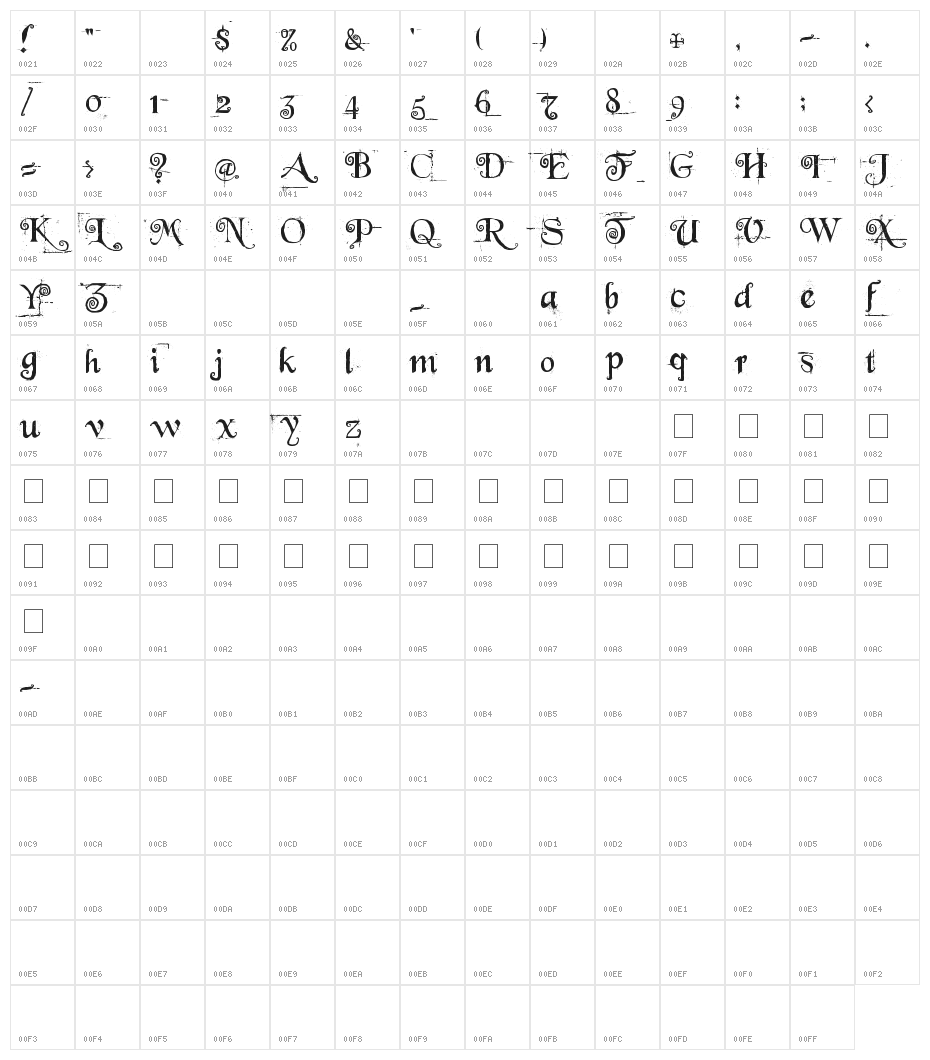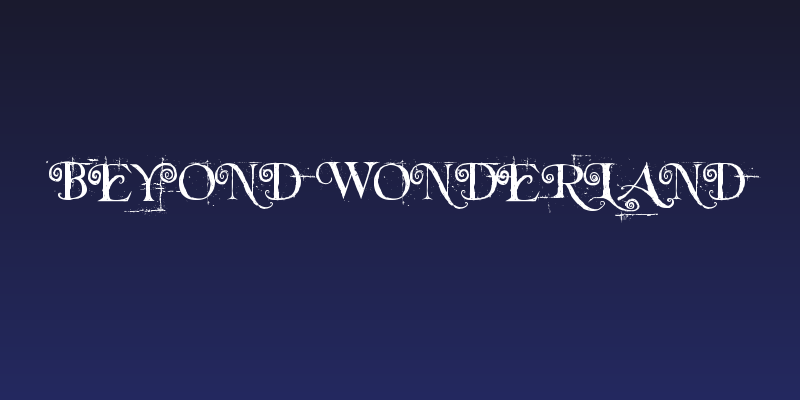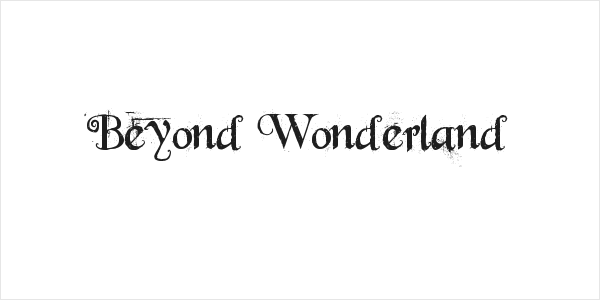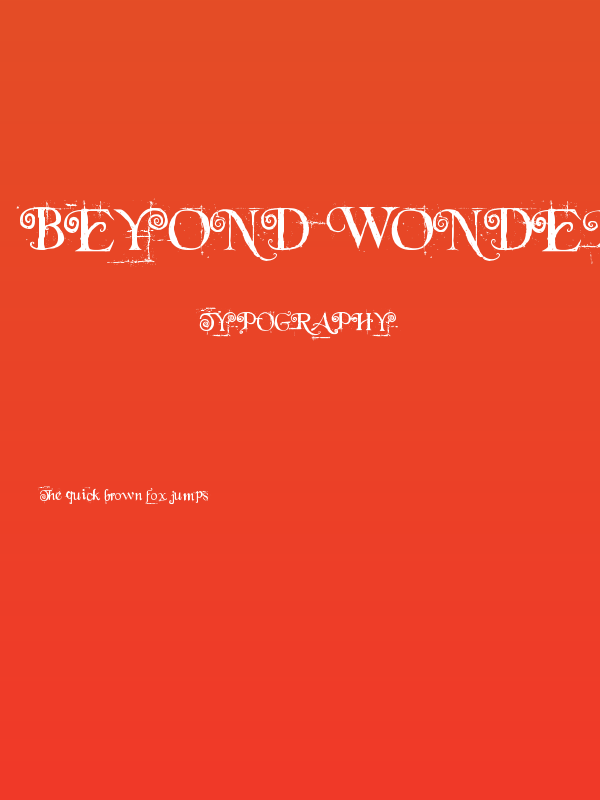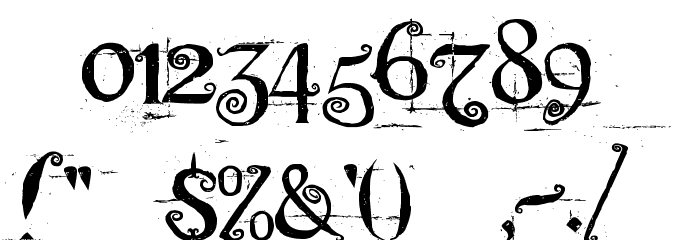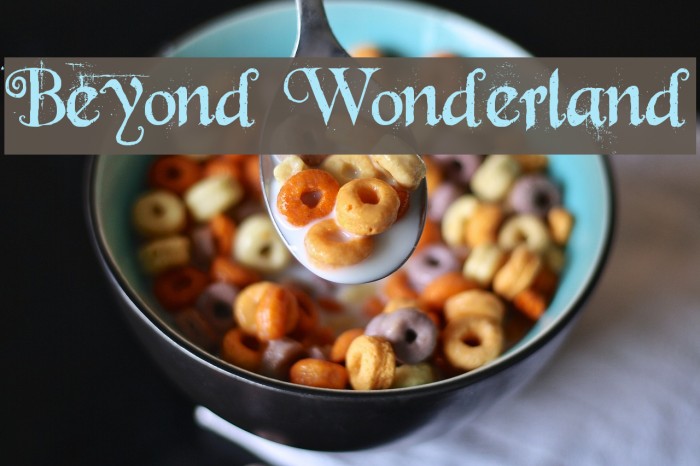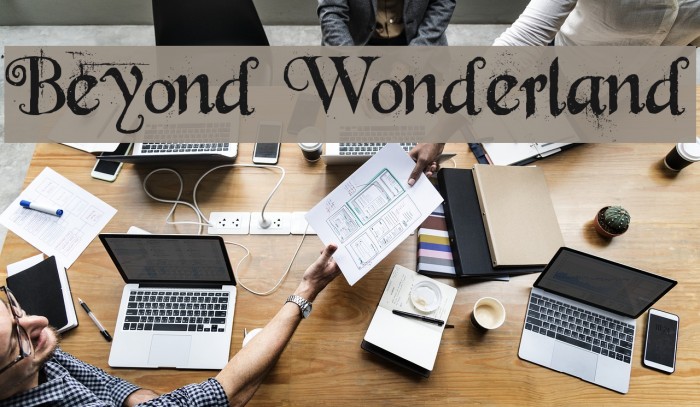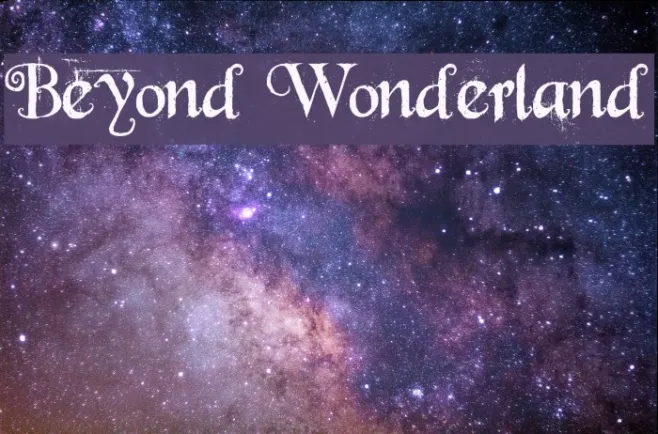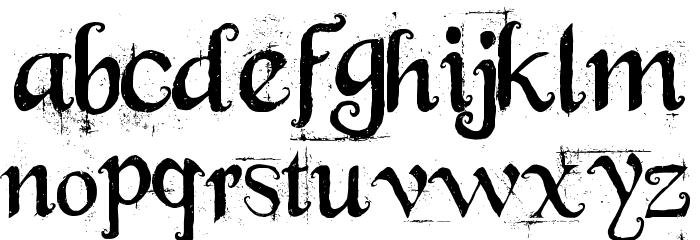
Beyond Wonderland Font
Beyond Wonderland Description
This font exudes a whimsical and fantastical charm, reminiscent of storybook tales and magical adventures. The uppercase letters are adorned with intricate swirls and flourishes, giving each character a unique and decorative appearance. The lowercase letters maintain a consistent style, with a slightly more subdued embellishment, ensuring readability while preserving the font's enchanting aesthetic. The numbers and special characters are equally ornate, featuring playful curls and loops that add to the overall whimsical feel. The distressed texture throughout the font adds a vintage touch, enhancing its storybook quality.
| Overall Style | Vintage, Decorative |
| Proposed Projects | Ideal for fantasy-themed projects, book covers, invitations, and branding that requires a magical or vintage touch. |